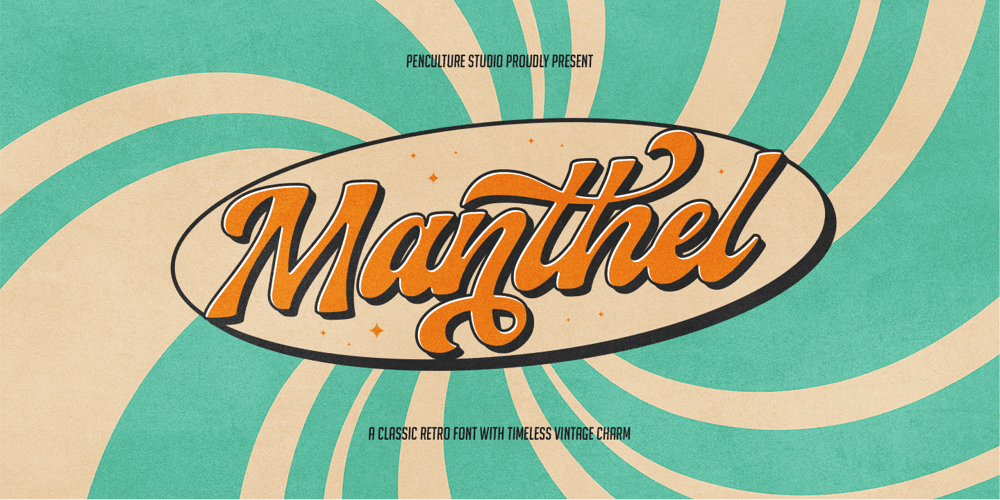
Manthel
Manthel font
Manthel Font Family was designed by Revo Farsiky and published by Pen Culture. Manthel contains 1 styles and family package options. Introducing “Manthel Retro Script Font”Manthel is a retro-inspired script font that combines vintage charm with modern versatility, perfect for creating designs with timeless appeal. Featuring an array of ligature and stylish alternates, Manthel allows you to customize your text with unique flairDrawing inspiration from classic hand-lettering and nostalgic advertising, this font brings sophistication and character to any project, effortlessly blending nostalgia with contemporary style.I really hope you enjoy it – please do let me know what you think, comments & likes are always hugely welcomed and appreciated. More importantly, please don’t hesitate to drop me a message if you have any issues or queries.Thank you